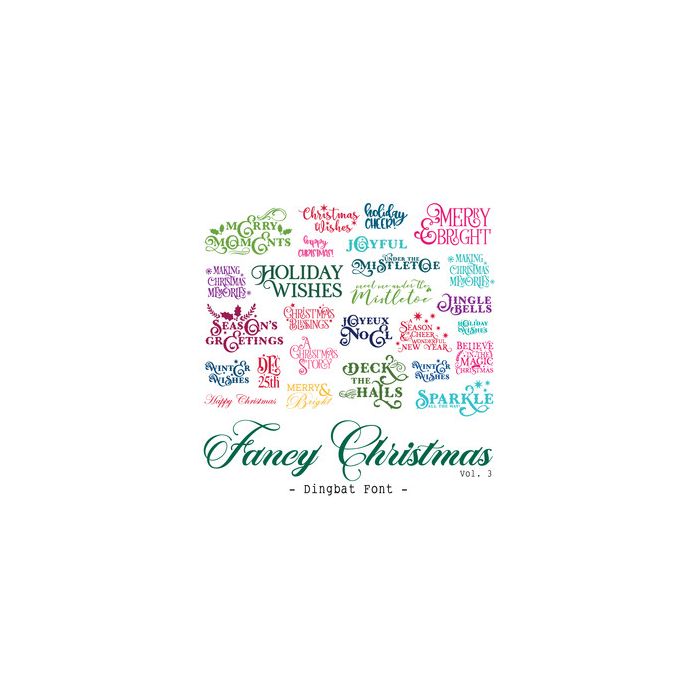
Fancy Christmas Vol 3, Christmas Quote and Sentiment Dingbat Font. Includes 26 sentiments, perfect for card making sentiments, inserts, scrapbooking, gifts and all kinds of seasonal craft projects!. All are assigned to an upper case letter starting with 'A' or can be accessed via glyphs. Volumes 1 and 2 of this font can be found in the Silhouette store. For more design ideas, coordinating designs & products and inspiration, please visit my blog http://www.sarahhurleyblog.com